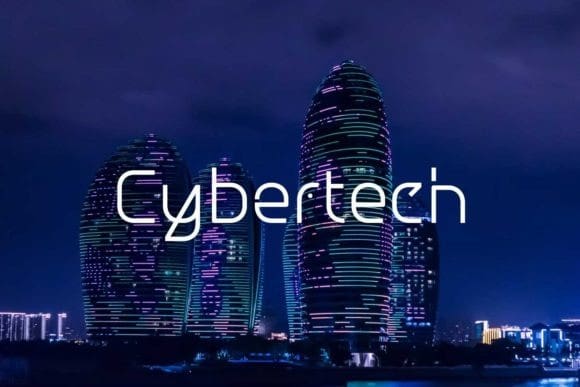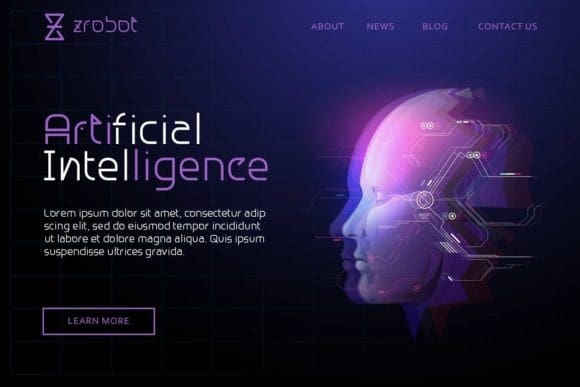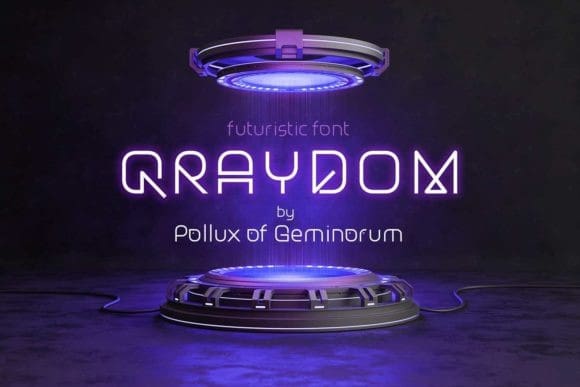
Qraydom Display Font
Qraydom Display Font – Futuristic display font, suitable for modern, future, science fiction, cyberpunk and technology themes. It’s also great for gaming and esport content. With this font, you can design posters, magazines, banners, logos, social media content, and video promotion with a techno feel.